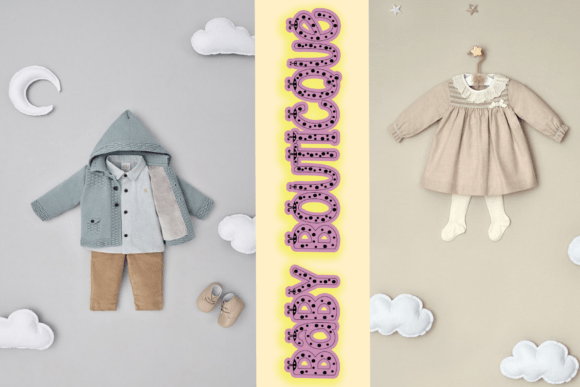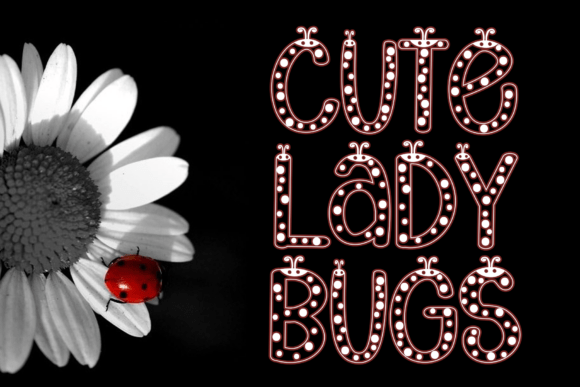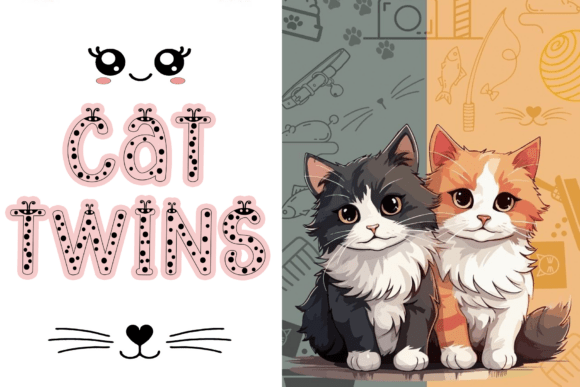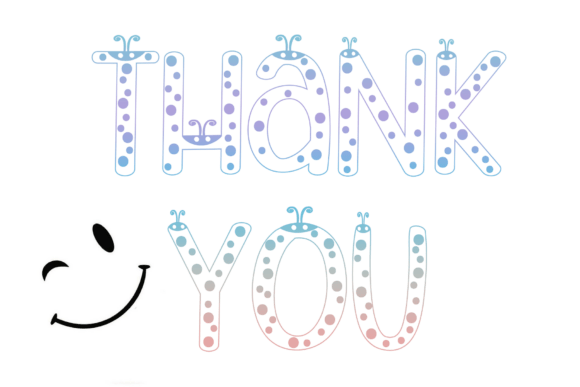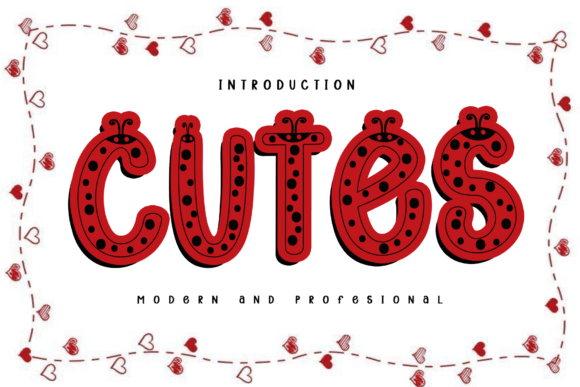
Cutes Font: The Perfect Choice for Creative and Personal Projects
In the world of typography, fonts play a crucial role in conveying the tone and personality of a design. If you’re looking for a font that exudes warmth, friendliness, and approachability, look no further than Cutes Font. This casual and creative font is perfect for personal projects, invitations, social media graphics, and any design that requires a touch of playfulness.
The Characteristics of Cutes Font
Cutes Font is characterized by its round, playful strokes that create a relaxed and informal feel. The font’s charming, hand-drawn aesthetic adds a fun and unique touch to any design, making it perfect for designers and crafters who want to add a personal touch to their work. The font’s friendly and approachable nature makes it ideal for designs that require a human touch, such as personal invitations, social media graphics, and blog posts.
Why Choose Cutes Font?
There are many reasons why Cutes Font is a great choice for designers and crafters. Here are a few:
- Warm and Friendly: Cutes Font exudes warmth and friendliness, making it perfect for designs that require a personal touch.
- Playful and Creative: The font’s playful strokes and hand-drawn aesthetic add a fun and unique touch to any design.
- Versatile: Cutes Font is versatile and can be used for a wide range of designs, from personal projects to social media graphics.
- Easy to Read: The font is easy to read, even at small sizes, making it perfect for body text and captions.
How to Use Cutes Font in Your Designs
Cutes Font is easy to use and can be incorporated into your designs in a variety of ways. Here are a few ideas:
- Personal Invitations: Use Cutes Font to create personalized invitations for parties, weddings, and other special events.
- Social Media Graphics: Use the font to create engaging social media graphics, such as Facebook posts, Instagram stories, and Twitter headers.
- Blog Posts: Use Cutes Font to add a personal touch to your blog posts and make them more engaging and readable.
- Crafting Projects: Use the font to create custom titles, headings, and labels for your crafting projects, such as scrapbooking, card making, and DIY home decor.
Tips for Pairing Cutes Font with Other Fonts
Pairing Cutes Font with other fonts can add depth and interest to your designs. Here are a few tips:
- Pair with a Serif Font: Pair Cutes Font with a serif font, such as Arial or Times New Roman, to create a nice contrast between the playful and formal fonts.
- Pair with a Script Font: Pair Cutes Font with a script font, such as Pacifico or Great Vibes, to add a touch of elegance and sophistication to your designs.
- Use as a Display Font: Use Cutes Font as a display font to add a playful touch to your designs, and pair it with a simpler font for body text.
Cutes Font is a versatile and creative font that is perfect for designers and crafters who want to add a personal touch to their work. Its warm and friendly nature makes it ideal for designs that require a human touch, such as personal invitations, social media graphics, and blog posts. With its playful strokes and hand-drawn aesthetic, Cutes Font is sure to add a fun and unique touch to any design.
Whether you’re a designer, crafter, or DIY enthusiast, Cutes Font is a great choice for any project that requires a touch of personality and whimsy. So why not give it a try and see how it can elevate your designs to the next level?